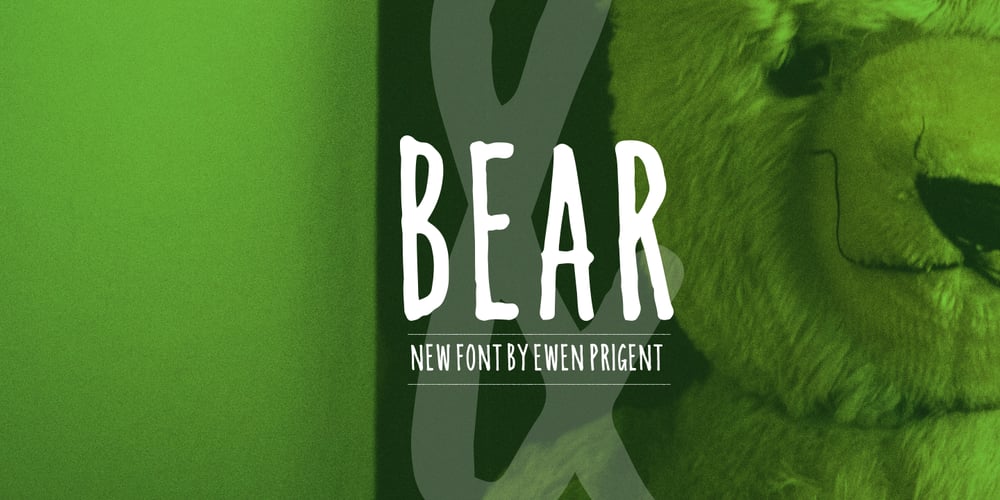
Bear Font Family was designed by Ewen Prigent and published by La Boîte Graphique. Bear contains 1 styles and family package options. Bear is a hand made font ideal for your graphic project.